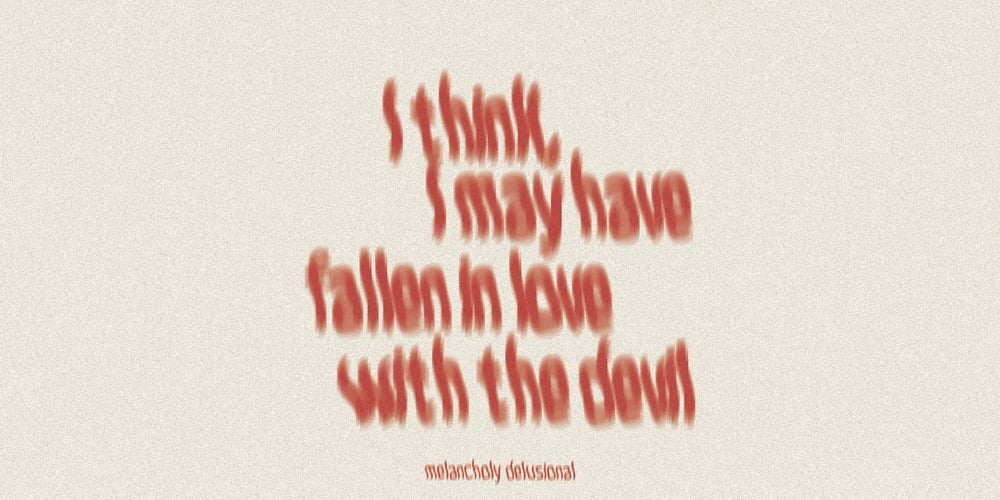
Melancholy Font Family was designed by Alex Blechta and published by Blechmen. Melancholy contains 3 styles and family package options. Melancholy is designed to be a rough and blotchy typeface that replicates ink from a typewriter. The letters themselves are meant to be imperfect with a nice flow. The typeface can act as a more natural sans-serif, and provide relief from reading normal perfect sans-serif typefaces. Melancholy comes in three different styles; regular, delusional and glitch.